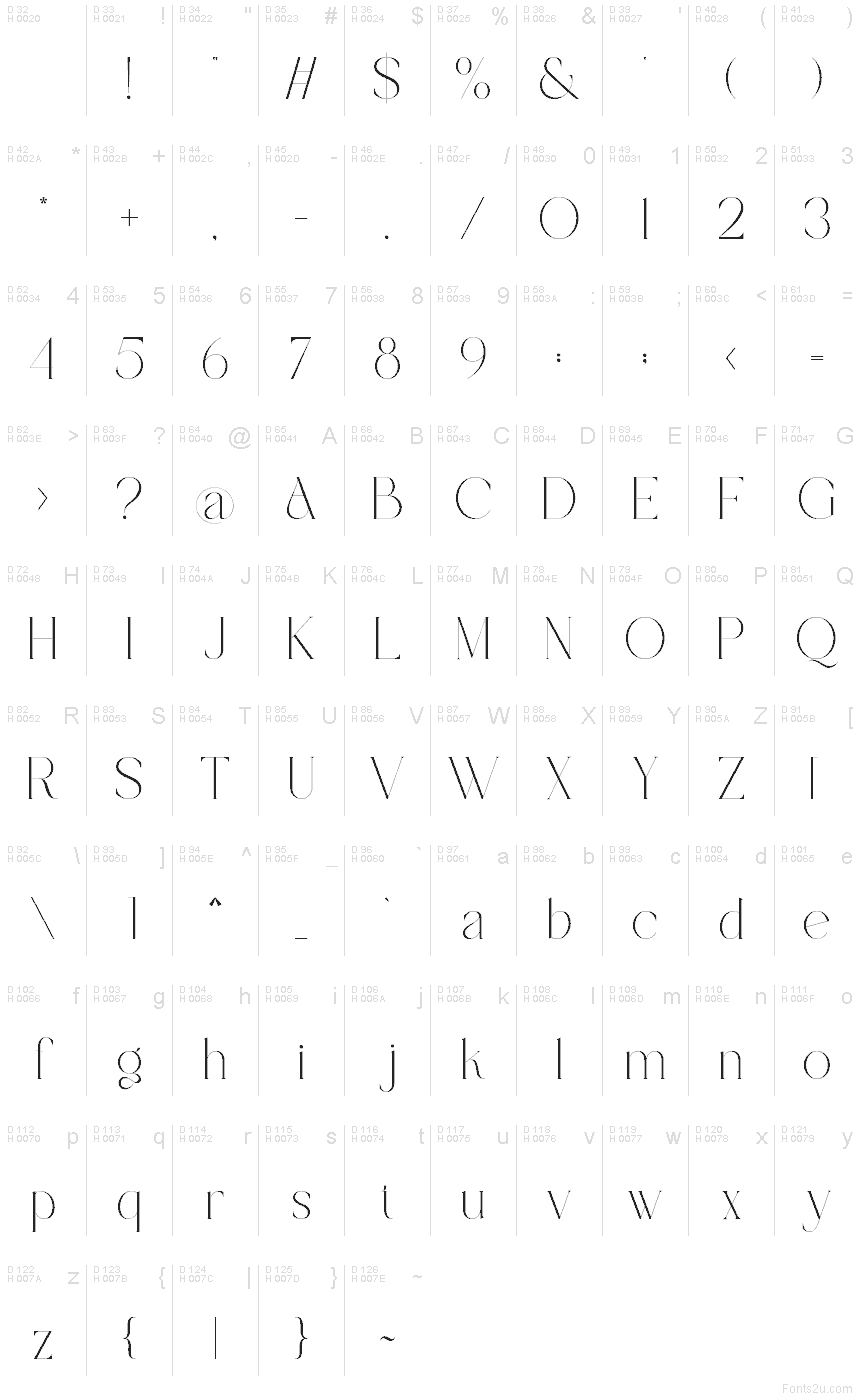
Vamike
Vamike font by Ermedia Studio is a free vintage serif font. Its defining move is the razor‑thin hairline meeting a bold vertical, creating a crisp snap you can almost hear. Tall, elegant proportions and glassy curves give headlines a couture sheen, while the generous spacing lets the letters breathe for a poised, editorial rhythm.
Using Vamike, headlines and logos come off polished and deliberate—great for fashion branding, perfume or beauty packaging, magazine mastheads, boutique menus, wedding suites, and campaign posters. Keep it large to protect those delicate strokes, and pair this free font with a quiet grotesk or humanist sans to handle body copy without stealing the spotlight.